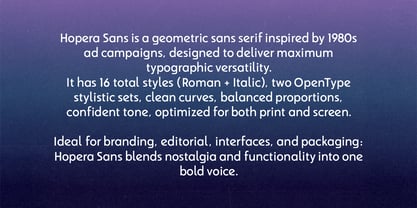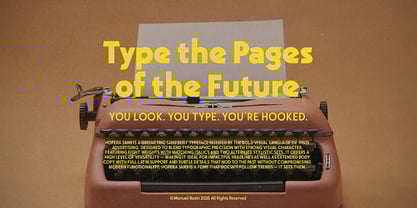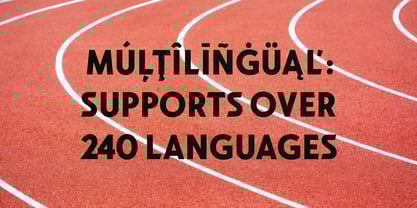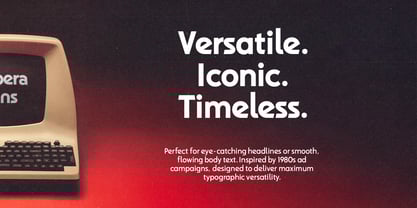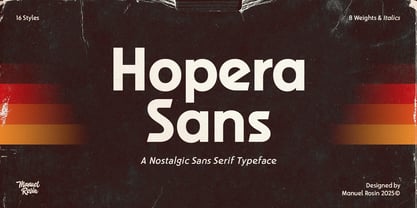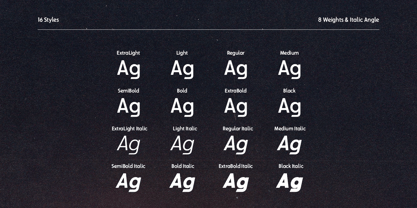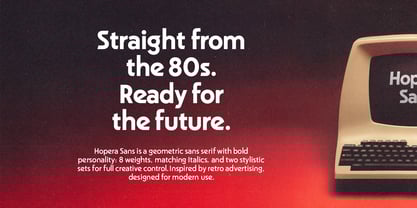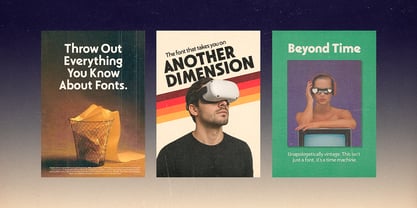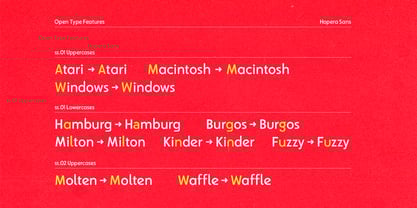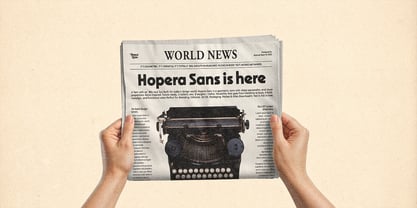
Hopera Sans
by Manuel Rosin
Hopera Sans is a geometric sans serif typeface inspired by the bold visual language of 1980s advertising, designed to blend typographic precision with strong visual character. Featuring eight weights with matching italics and two alternate stylistic sets, it offers a high level of versatility — making it ideal for impactful headlines as well as extended body copy. Its clean forms, balanced construction, and retro edge make it a perfect fit for branding, editorial design, packaging, and digital interfaces. Hopera Sans is fully optimized for both print and screen, with full Latin support and subtle details that nod to the past without compromising modern functionality.
A font that doesn’t follow trends — it sets them.